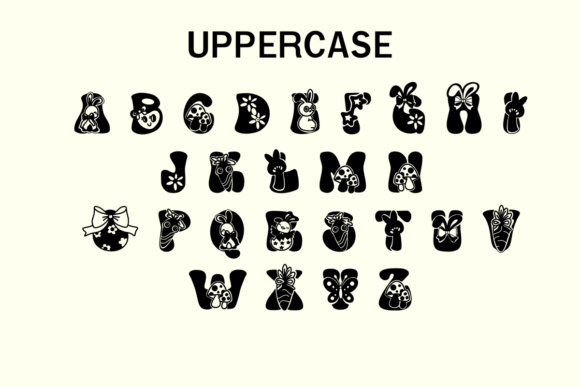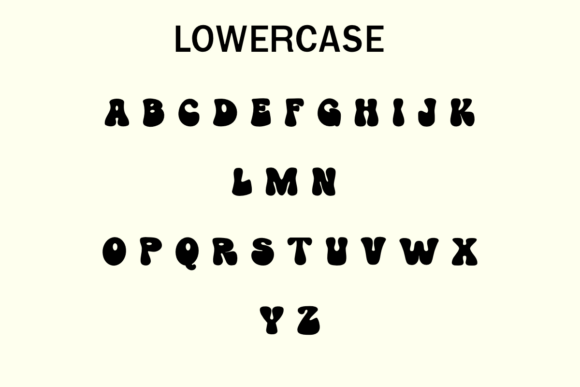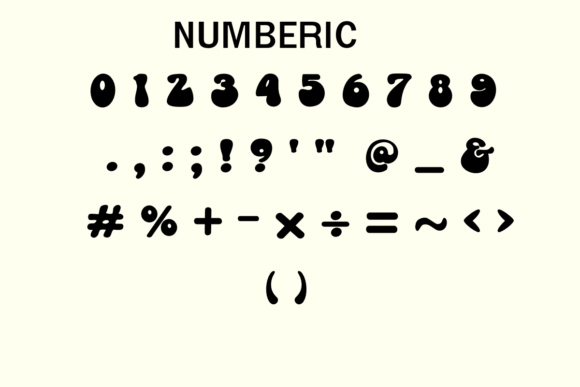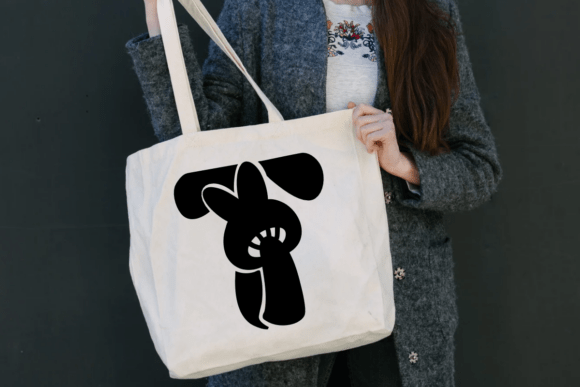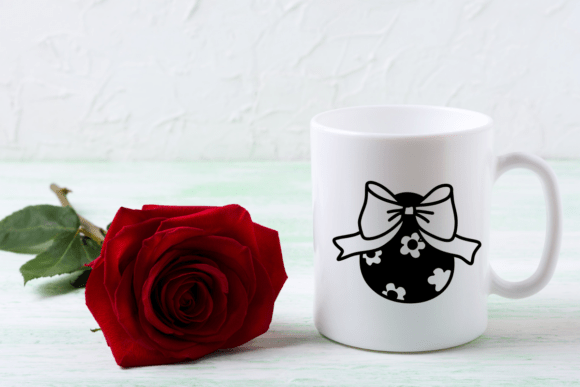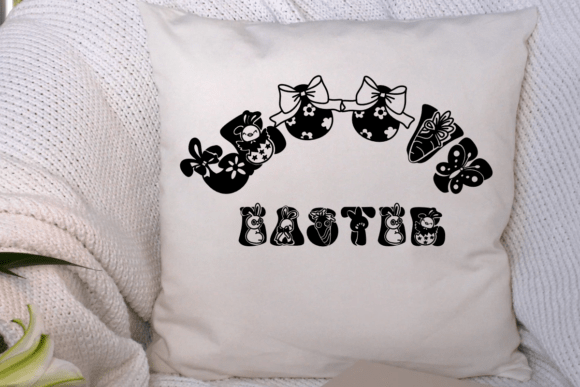
Hop into the Groovy Easter Spirit with this Fun and Playful Font!
Are you looking for a unique and eye-catching font to add some Easter cheer to your designs? Look no further than the Groovy Easter Font! This decorative font is perfect for crafters, designers, and anyone looking to add a touch of whimsy to their Easter-themed projects.
What is Groovy Easter Font?
Groovy Easter is a decorative font that is sure to bring a smile to anyone’s face. Its playful and fun design makes it perfect for a variety of creative projects, from taking notes and writing diaries to making greeting cards and crafting social media posts.
Uses for Groovy Easter Font
This versatile font can be used for a wide range of designs, including:
- Note-taking and journaling: Add a touch of Easter fun to your notes and diary entries with the Groovy Easter Font.
- Greeting cards: Create one-of-a-kind Easter greeting cards that are sure to delight friends and family.
- Banners and signs: Use the Groovy Easter Font to create eye-catching banners and signs for Easter parties and events.
- Mugs and ceramics: Add a playful touch to your Easter-themed mugs and ceramics with this fun font.
- Shirts and apparel: Design unique Easter-themed shirts and apparel with the Groovy Easter Font.
- Stationery and paper crafts: Use the Groovy Easter Font to add a touch of whimsy to your stationery and paper crafts.
- Social media posts: Create engaging and festive Easter-themed social media posts with this fun and playful font.
Why Choose Groovy Easter Font?
There are many reasons to choose the Groovy Easter Font for your Easter-themed designs. Here are just a few:
- Unique and eye-catching: The Groovy Easter Font is a one-of-a-kind font that is sure to grab attention.
- Playful and fun: This font is perfect for adding a touch of whimsy and fun to your designs.
- Versatile: The Groovy Easter Font can be used for a wide range of designs and projects.
Tips for Using Groovy Easter Font
Here are a few tips for getting the most out of the Groovy Easter Font:
- Experiment with different colors: Try pairing the Groovy Easter Font with different colors and textures to add depth and interest to your designs.
- Use it sparingly: While the Groovy Easter Font is fun and playful, it can be overwhelming if used too much. Try using it sparingly to add a touch of whimsy to your designs.
- Pair it with other fonts: Try pairing the Groovy Easter Font with other fonts to create a unique and eye-catching design.
The Groovy Easter Font is a fun and playful font that is perfect for adding a touch of Easter cheer to your designs. With its unique and eye-catching design, versatile uses, and easy-to-use format, this font is sure to become a favorite among designers and crafters. So why wait? Hop into the Groovy Easter spirit and start creating with this amazing font today!